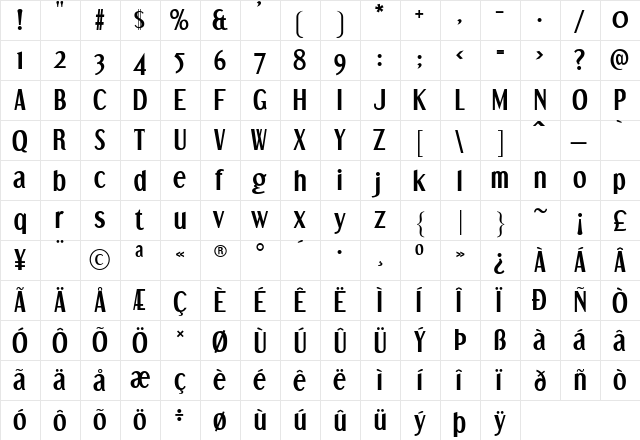
Dream Orphans Bold
Design Context for Dream Orphans Typeface
Dream Orphans is a composed and adaptable typeface that performs quietly and consistently across a wide range of design contexts. The heavy weight commands attention and anchors typographic hierarchies.